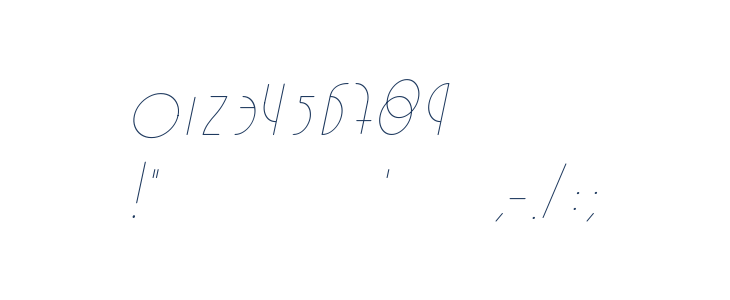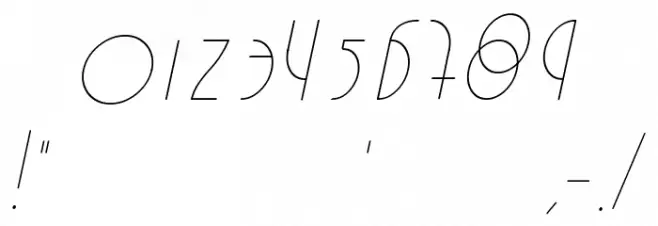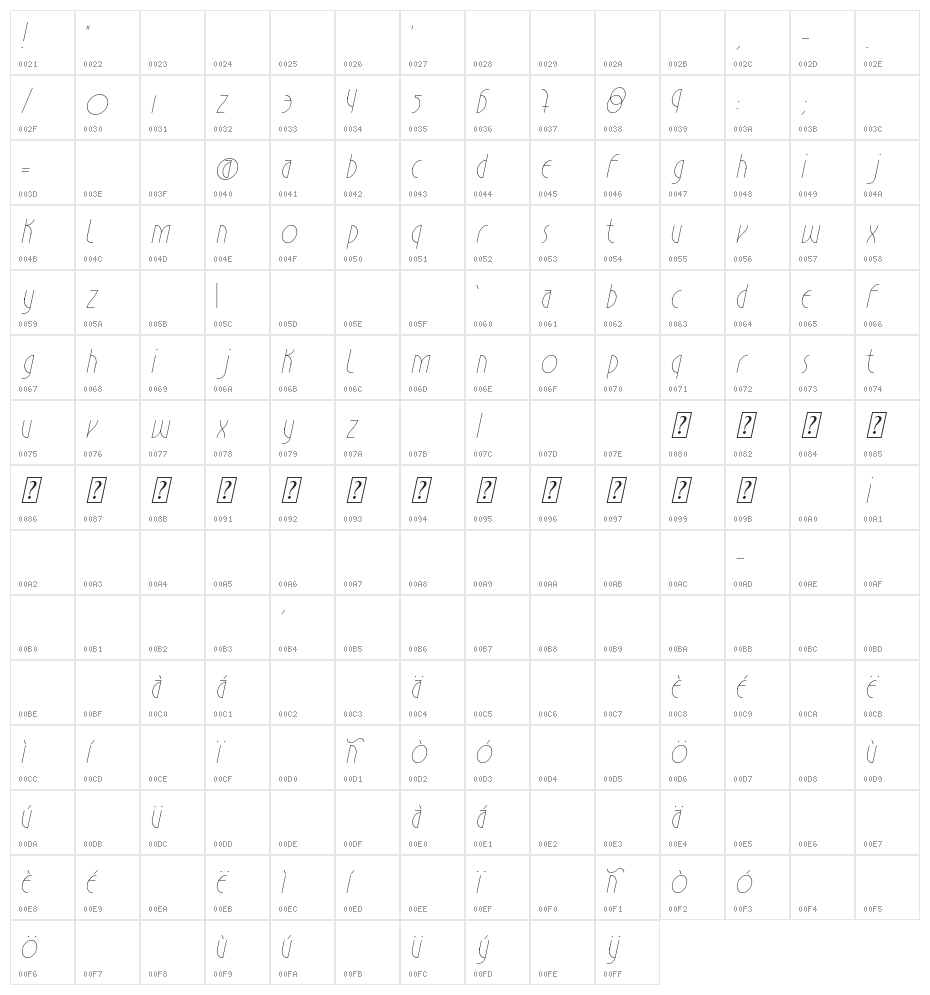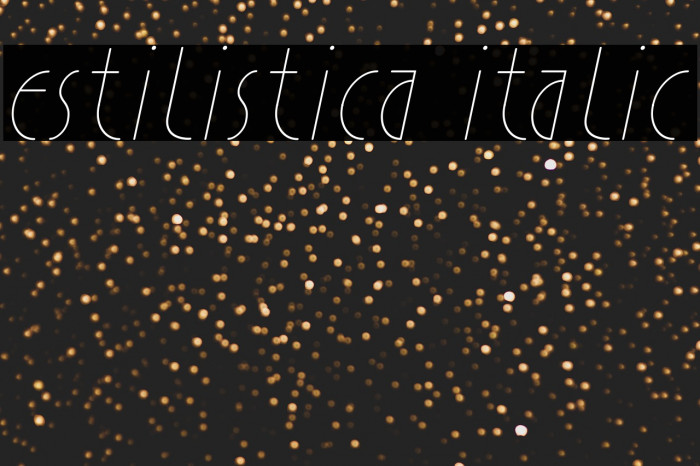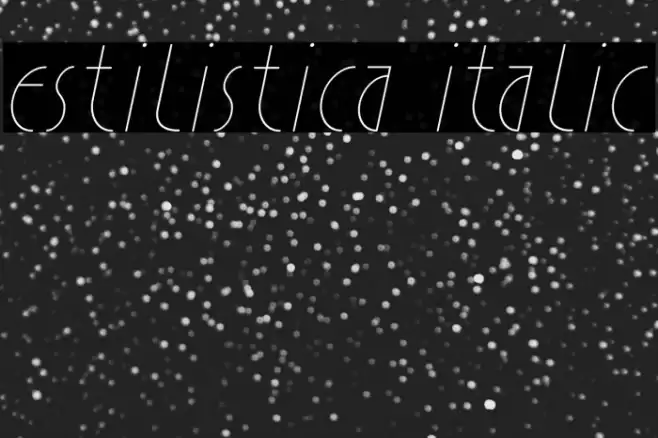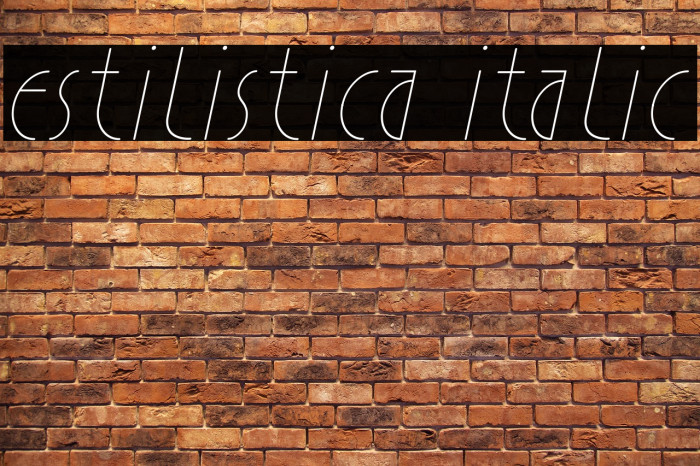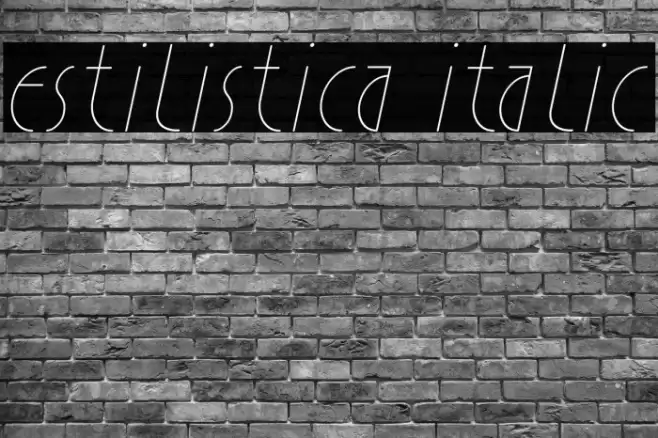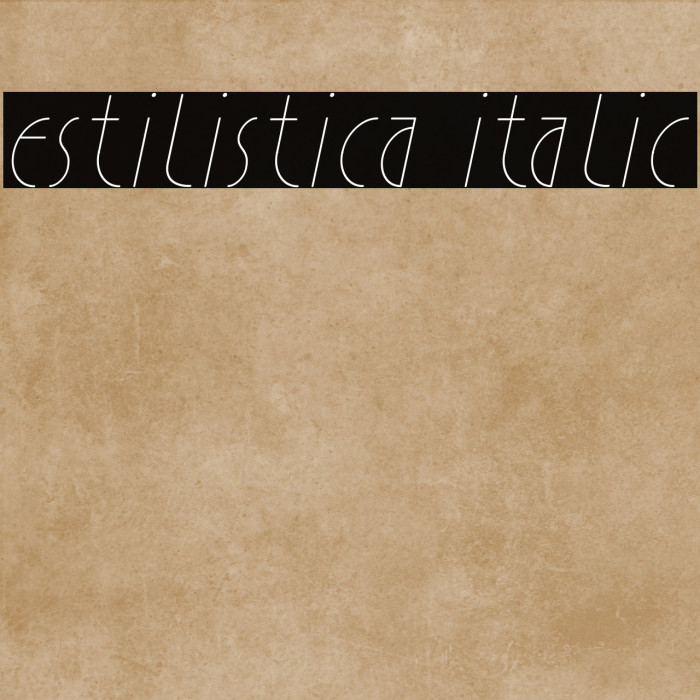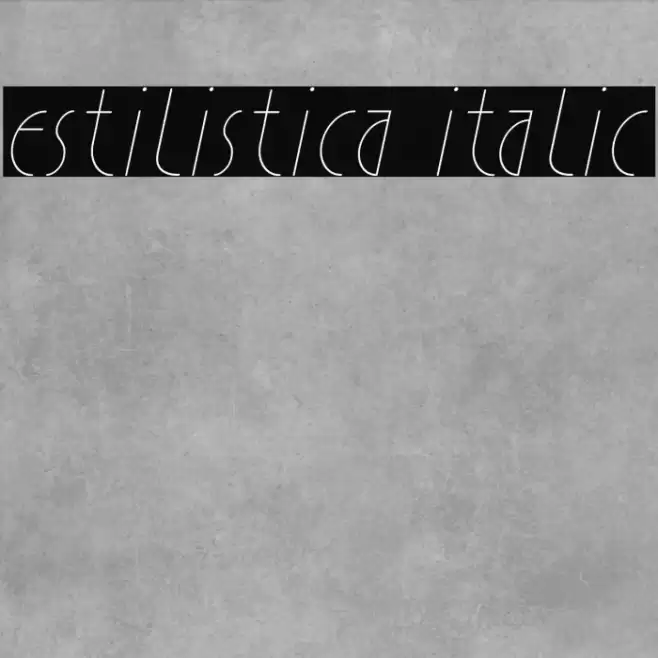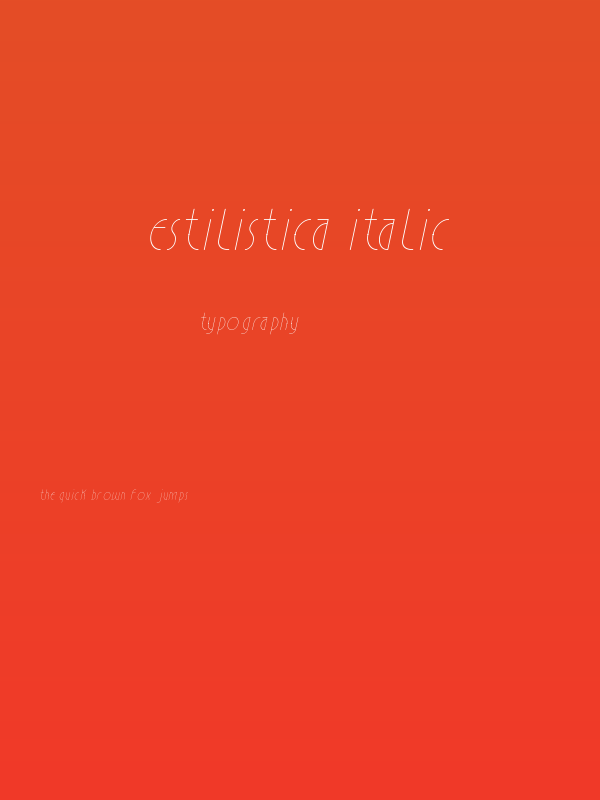
Estilistica Italic Font
Estilistica Italic Description
This font features a sleek and elegant design with a distinct italic slant, giving it a dynamic and sophisticated appearance. The characters are thin and elongated, with a consistent stroke width that maintains a clean and modern look. The spacing between characters is slightly wide, enhancing readability while preserving its stylish essence. The font's minimalistic and airy design makes it suitable for projects that require a touch of elegance and modernity. Its unique style is perfect for creating a refined and contemporary aesthetic.
| Overall Style | Modern, Elegant |
| Use Case | Headlines, Branding, Invitations |
| Proposed Projects | Ideal for fashion magazines, luxury branding, elegant invitations, and modern web design. |